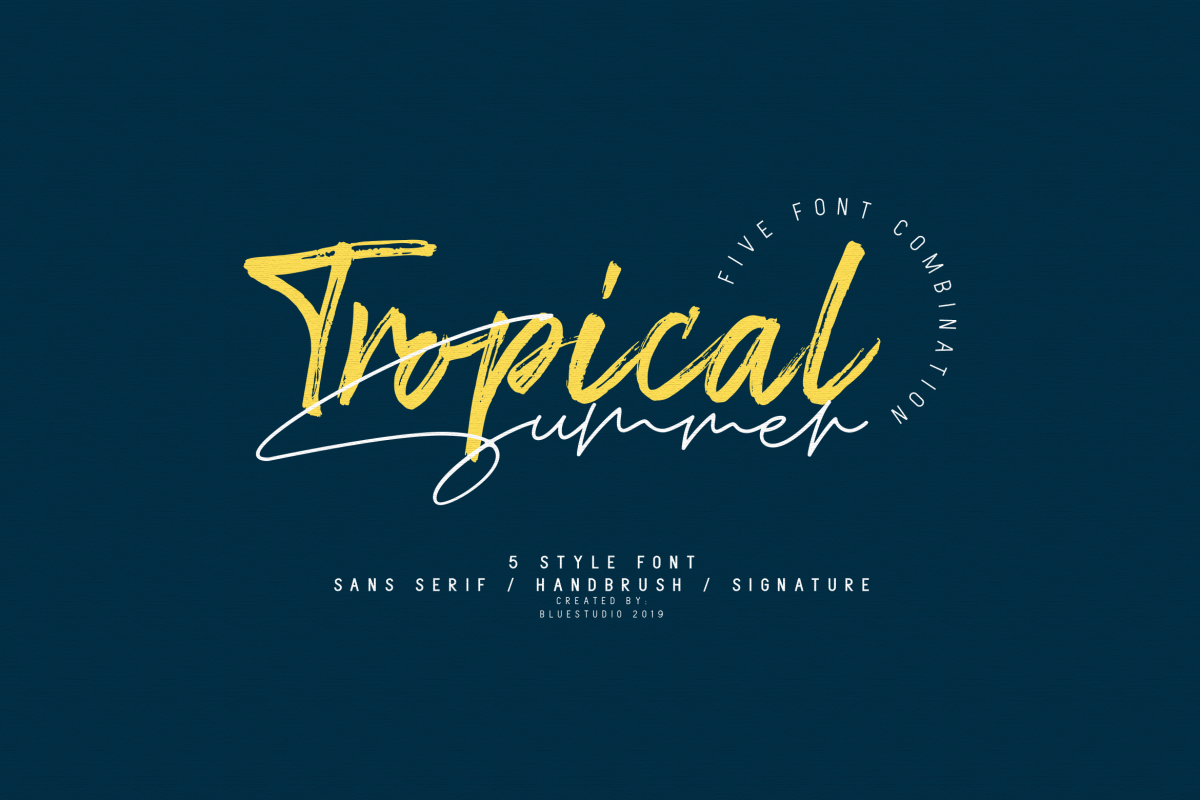
Tropical Summer // Font Combination
Tropical Summer is perfect combination of five fonts all your design project needs.
Get inspired by its classy appearance!